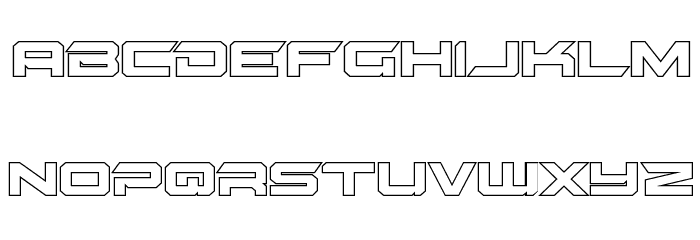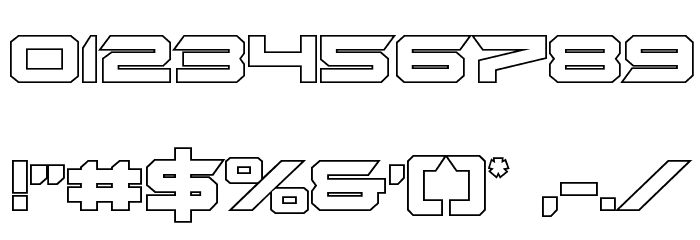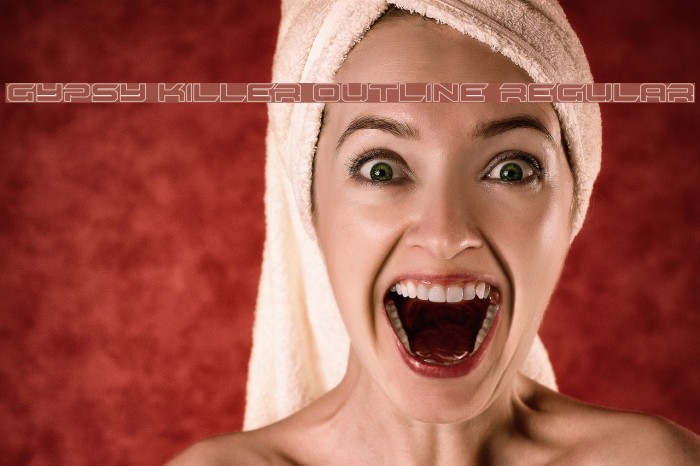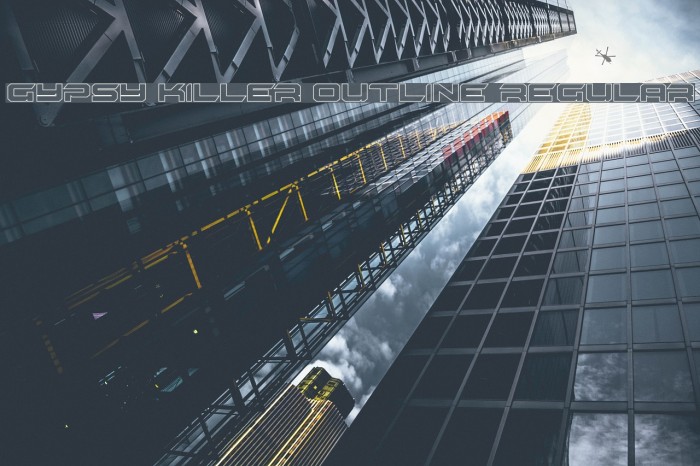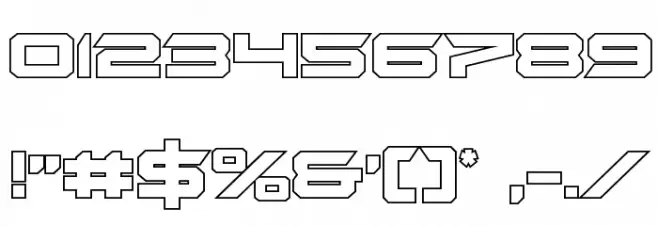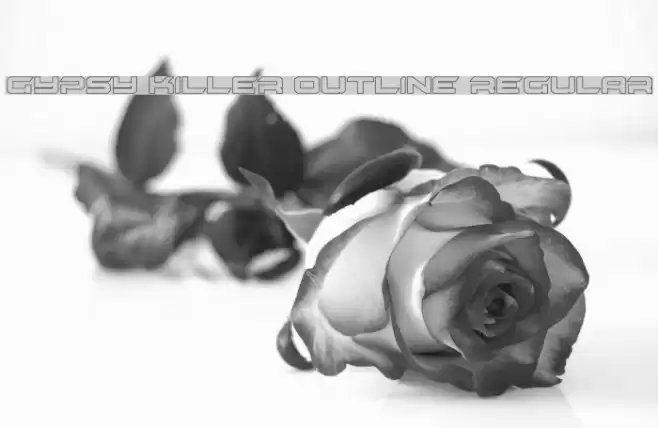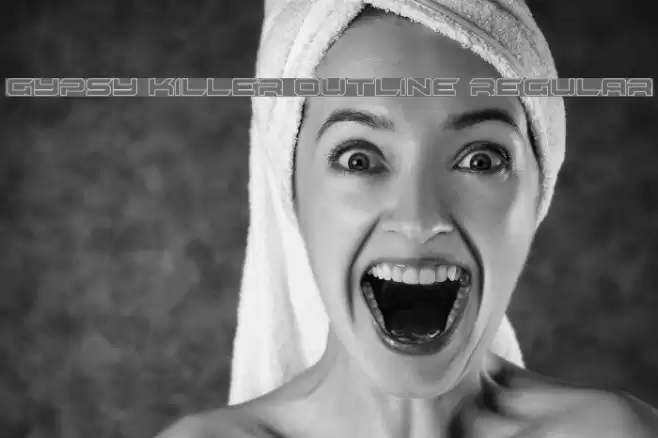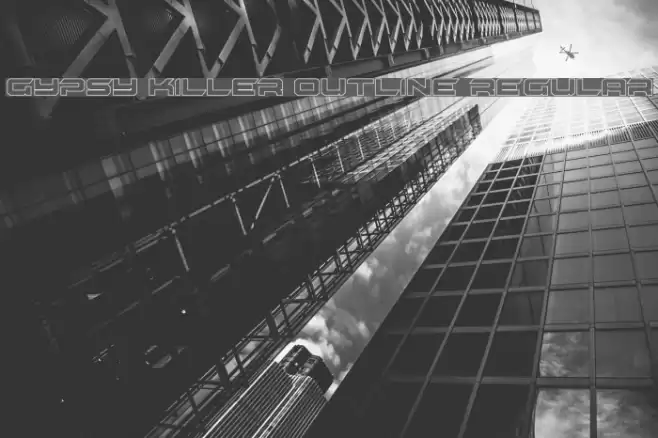
Gypsy Killer Outline Regular Font
This font features a bold, geometric outline style with a futuristic and angular design. Each character is crafted with sharp edges and a consistent thickness, creating a uniform and striking appearance. The uppercase and lowercase letters maintain a cohesive look, with the uppercase being slightly more pronounced. Numbers and special characters follow the same design principles, ensuring a harmonious overall aesthetic. The font's outline nature gives it a unique, modern feel, making it stand out in any design project.
A bold, geometric outline font with a futuristic and angular design.
- Proposed Projects: Ideal for sci-fi themed projects, modern branding, posters, and digital artwork.